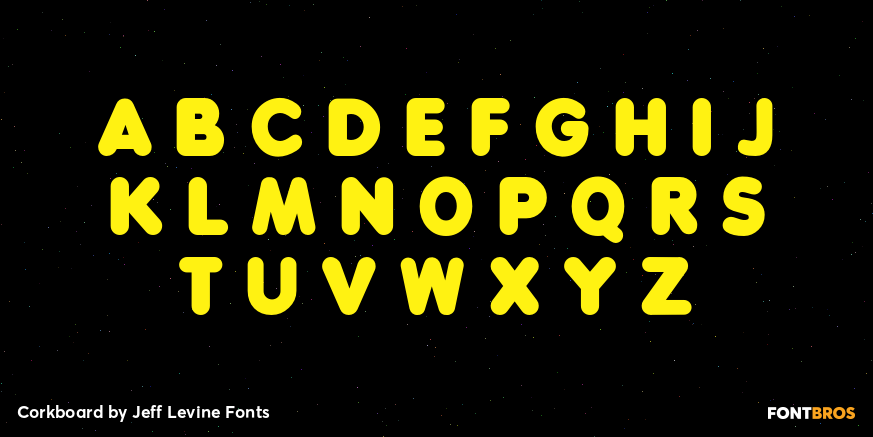
Corkboard
Corkboard JNL is a bold, yet fun rounded-ends typeface that was popular in the 1970s and enjoying a revival among students and teachers via die-cut bulletin board letters. Five variations are offered – Regular, Slanted, Shadow, Shadow Slanted and Kiddies. Corkboard Kiddies JNL has a limited character set and eccentric spacing that emulates the way a child might put letters onto a bulletin board.